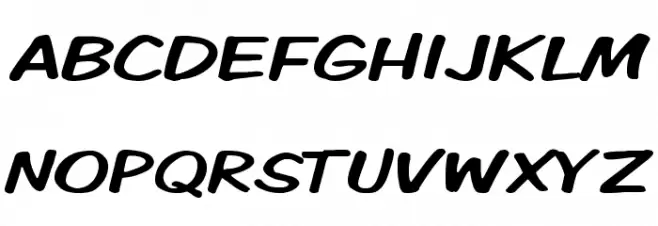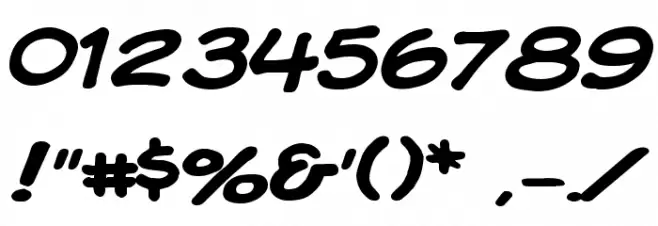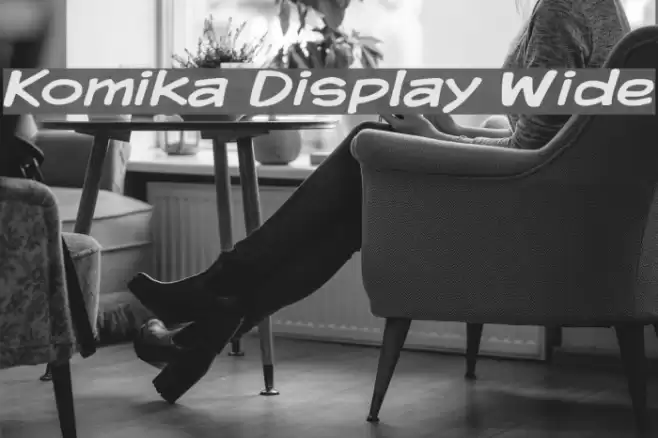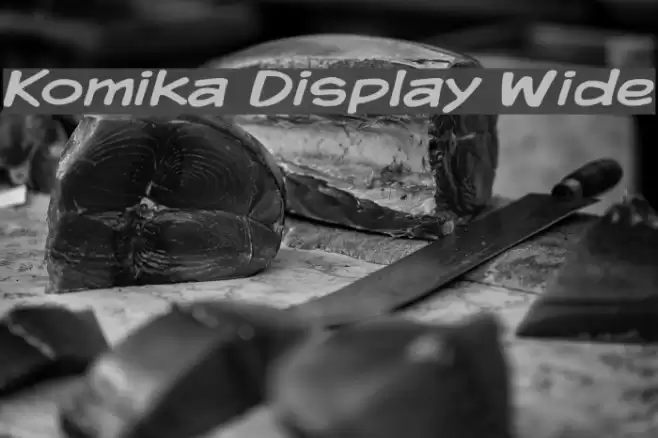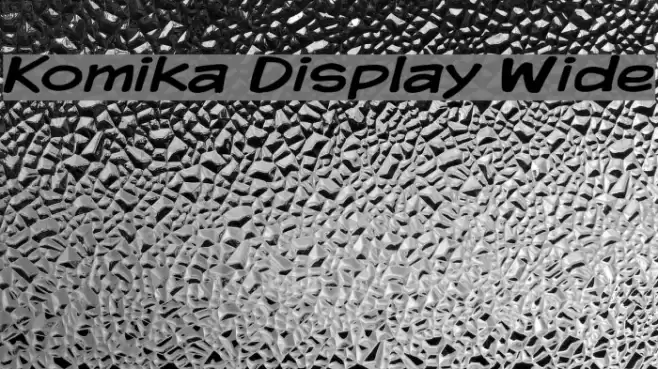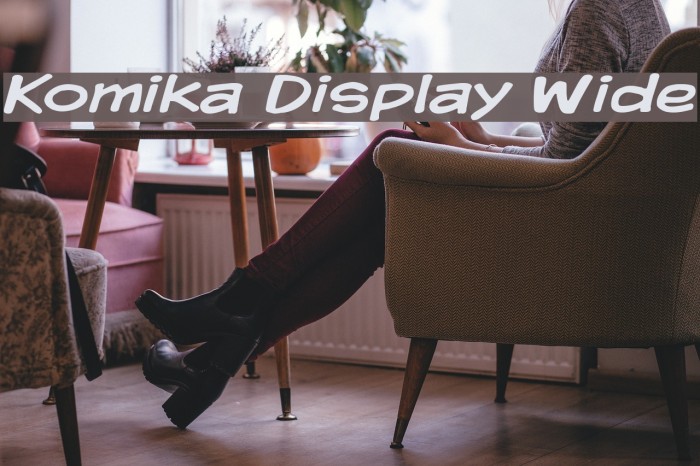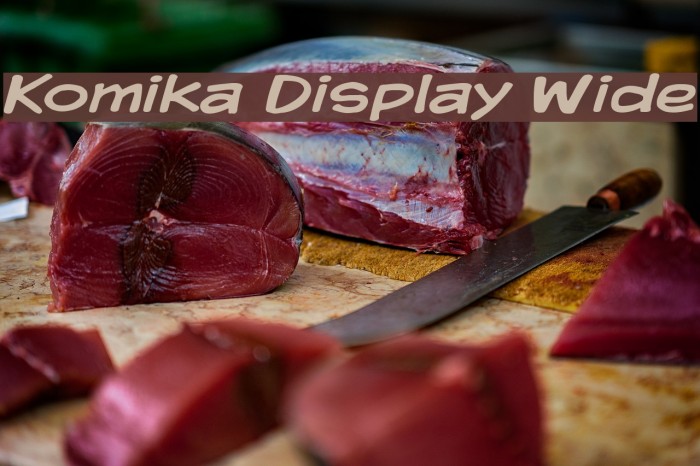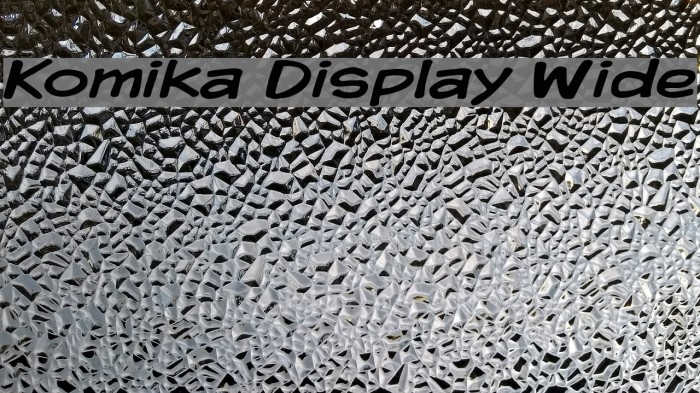
Komika Display Wide
This font features a playful and bold style with a wide stance, giving it a comic-like appearance. The letters are rounded and slightly slanted, adding a dynamic and informal feel. The uppercase and lowercase characters maintain a consistent weight, providing a cohesive look across the alphabet. The numerals and special characters follow the same design principles, ensuring uniformity. Its wide character width and bold strokes make it highly legible and eye-catching, suitable for various creative applications.
A playful, bold, and wide font with a comic-like style.
- Proposed Projects: Ideal for comic books, children's books, playful branding, posters, and any project requiring a fun and informal touch.
- Width: Expanded
- Overall Style: Playful, Comic
- Use Case: Headlines, Logos, Posters